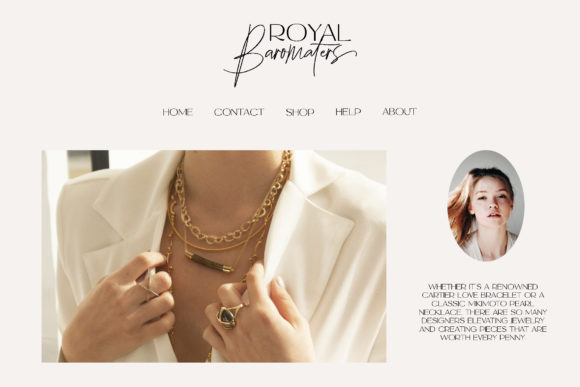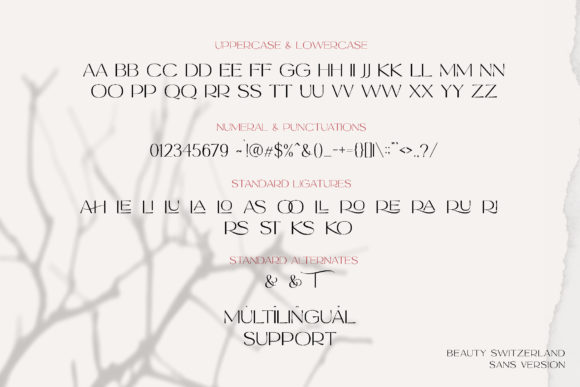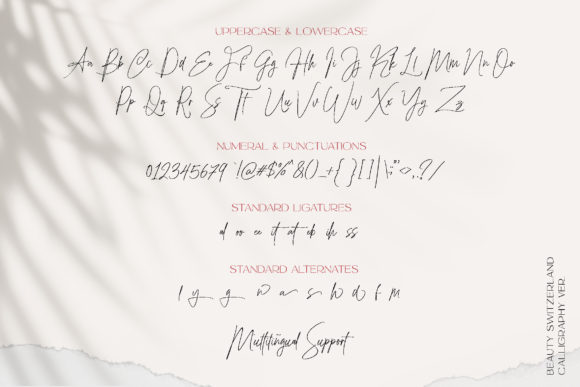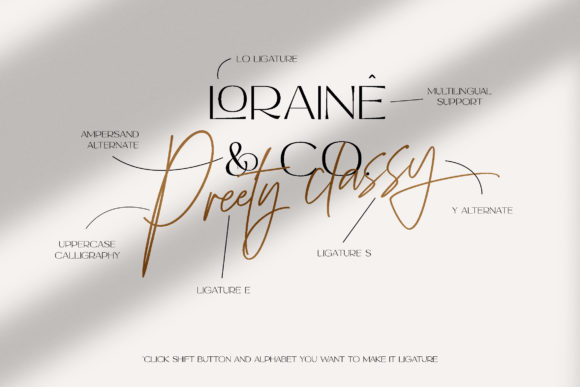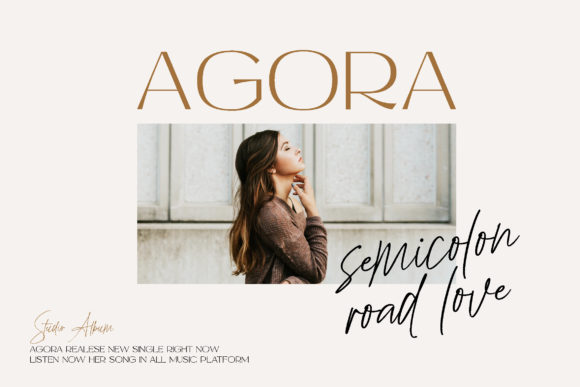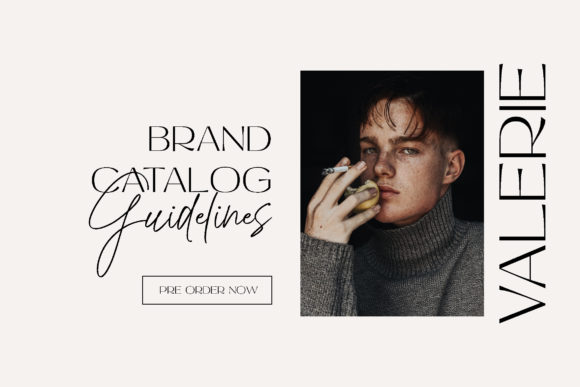
Introducing Beauty Switzerland Font: Elevate Your Designs with Elegance
Are you a designer or crafter looking to add a touch of luxury to your projects? Look no further than the Beauty Switzerland Font, an exquisite script font that embodies elegance, delicacy, and distinction. This stunning font is designed to elevate your designs and leave a lasting impression on your audience.
What Makes Beauty Switzerland Font So Special?
Beauty Switzerland Font is an elegant, delicate, and distinct script font that is perfect for designers and crafters who want to add a touch of sophistication to their work. Its unique and refined aesthetic makes it ideal for a wide range of design projects, from luxury branding and packaging to wedding invitations and stationery.
One of the standout features of Beauty Switzerland Font is its PUA (Private Use Area) encoding. This means that you can easily access all of the amazing glyphs and ligatures, making it simple to incorporate into your designs. With PUA encoding, you can unlock the full potential of this beautiful font and take your designs to the next level.
Perfect for Luxury Designs
Beauty Switzerland Font is designed to add a luxury spark to any design project. Its elegant and refined aesthetic makes it perfect for designers who want to create high-end branding, packaging, and marketing materials. Whether you’re working on a luxury fashion brand, a high-end hotel, or a premium product, this font is sure to impress.
Key Features of Beauty Switzerland Font
- Elegant, delicate, and distinct script font
- Perfect for luxury designs, branding, and packaging
- Ideal for wedding invitations, stationery, and other special projects
- Easy to use and incorporate into your designs
How to Use Beauty Switzerland Font in Your Designs
Tips for Getting the Most Out of Beauty Switzerland Font
To get the most out of Beauty Switzerland Font, here are a few tips:
- Use it sparingly: Beauty Switzerland Font is a statement font, so use it sparingly to make a big impact.
- Pair it with other fonts: Pair Beauty Switzerland Font with other fonts to create a unique and interesting contrast.
- Experiment with different sizes: Experiment with different sizes and styles to find the perfect fit for your design.
Beauty Switzerland Font is a stunning script font that is perfect for designers and crafters who want to add a touch of luxury to their designs. With its elegant and refined aesthetic, PUA encoding, and ease of use, this font is sure to elevate your designs and leave a lasting impression on your audience. So why wait? Download Beauty Switzerland Font today and take your designs to the next level!
- What is Beauty Switzerland Font? Beauty Switzerland Font is an elegant, delicate, and distinct script font designed for luxury designs, branding, and packaging.
- What is PUA encoding? PUA encoding is a feature that allows you to easily access all of the glyphs and ligatures in a font.